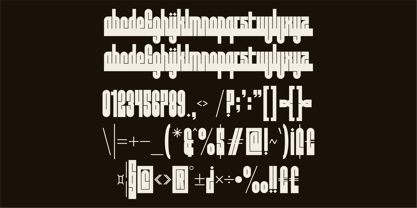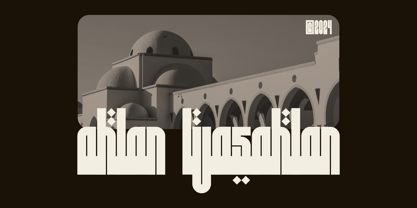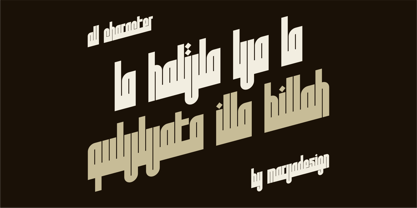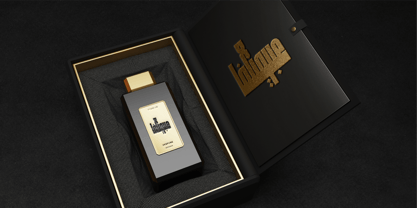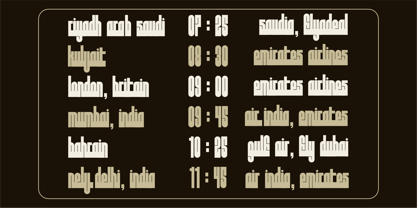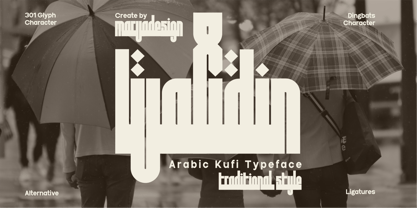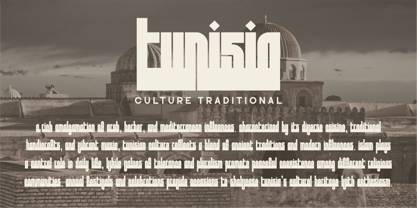
Walidin
by Marvadesign
The Walidin Font Family was designed by Febrie Setiawan and published by Marvadesign. Walidin contains 1 styles. More about this family
Introducing Walidin is a meticulously crafted Arabic Kufi typeface that blends traditional calligraphic aesthetics with a modern geometric approach. Its bold, structured letterforms are characterized by vertical emphasis, sharp angles, and a balanced combination of straight and curved strokes, creating a visually striking and highly legible composition. The typeface maintains the integrity of classic Kufi script while incorporating contemporary design principles, making it a versatile choice for various applications.
Designed with precision, Walidin features 301 glyph characters, including a wide range of ligatures, alternative characters, and dingbats. These elements enhance its adaptability for both decorative and functional uses, allowing for seamless integration in branding, editorial design, signage, and digital media. The font’s consistent stroke weight and clean lines provide a sense of harmony and sophistication, ensuring clarity even at larger display sizes.
Walidin’s distinct aesthetic draws inspiration from Arabic heritage while offering a fresh and modern interpretation. Its structured yet elegant appearance makes it ideal for projects that require a strong cultural identity with a contemporary touch. Whether used in traditional contexts or experimental layouts, this typeface delivers a unique blend of history and innovation, reinforcing its position as a timeless and impactful design tool.